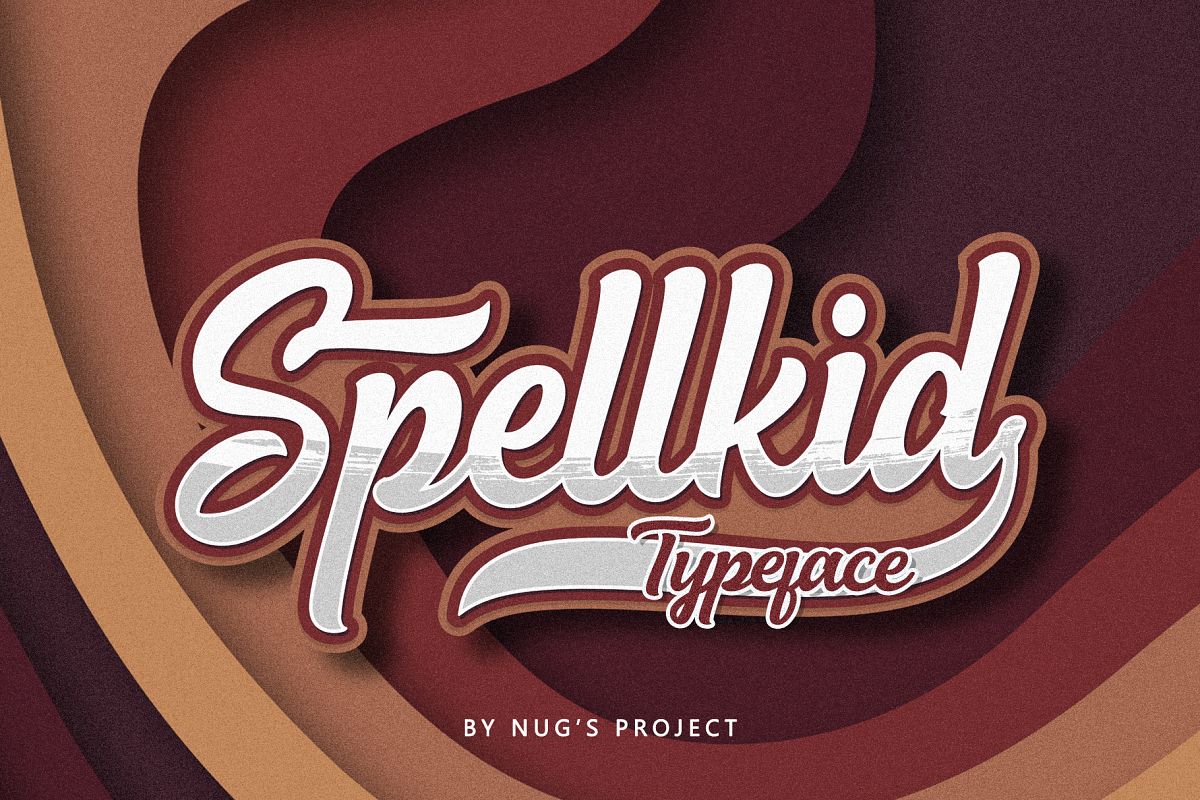
Spellkid
Spellkid Swash
Spelkid Outline
Spellkid
Spellkid ia a bold script, with a clean lines and smooth curve combined with the beautiful features!